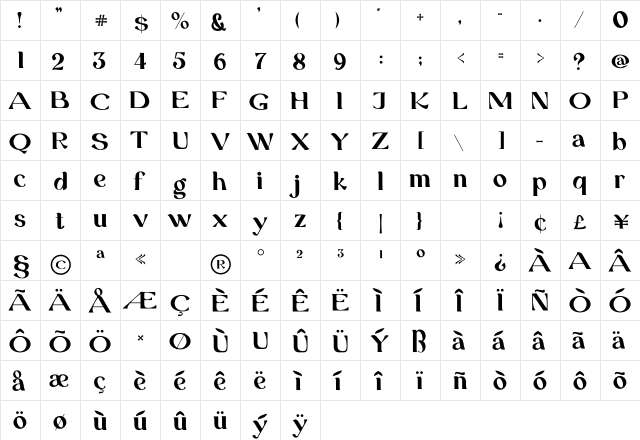
GRAND DUKE Regular
Design Context for GRAND DUKE Typeface
GRAND DUKE takes a measured approach to typography — its balanced proportions and neutral character make it a reliable workhorse for both digital and print work.